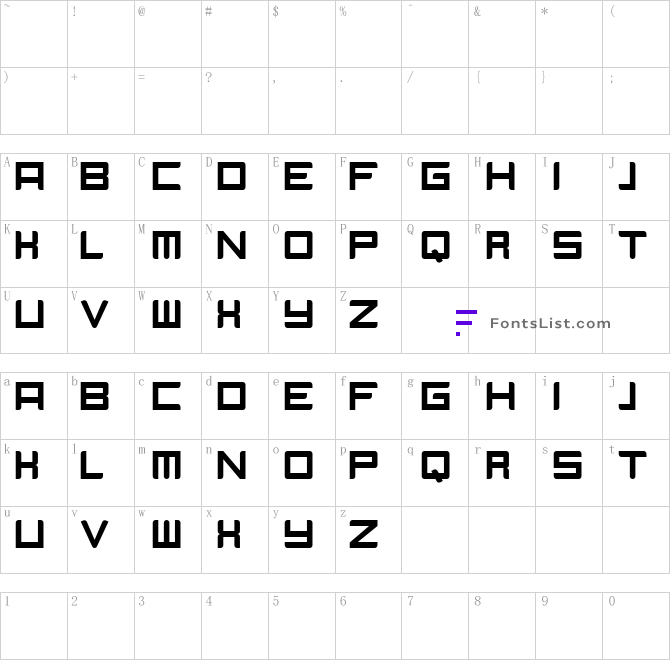
- Font Name:Camieis
Camieis.ttf is a very beautiful artistic font, Camieis.ttf is widely used in the design and printing of various books and pictures,Camieis.ttf has a strong visual impact,Camieis.ttf is a commonly used font in newspapers, magazines and books, and is used in posters, e-commerce Poster design, store design, logo design, font design and other fields.Camieis.